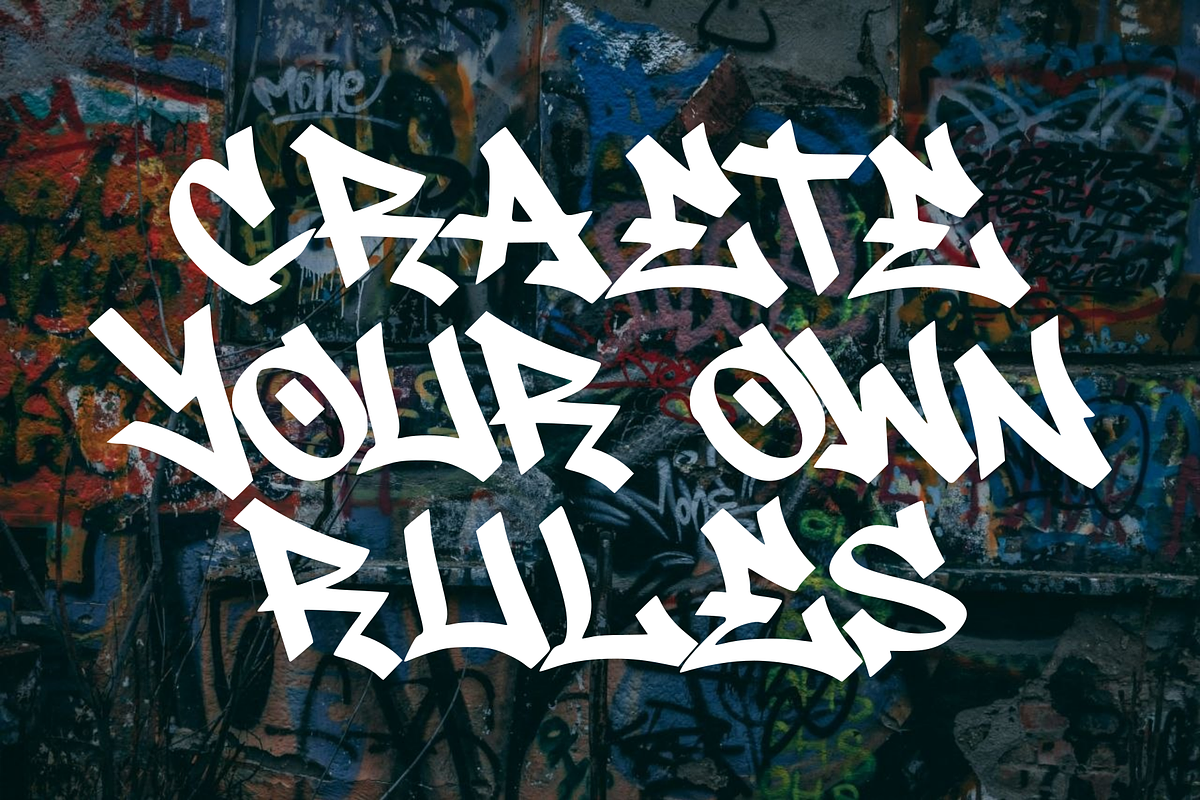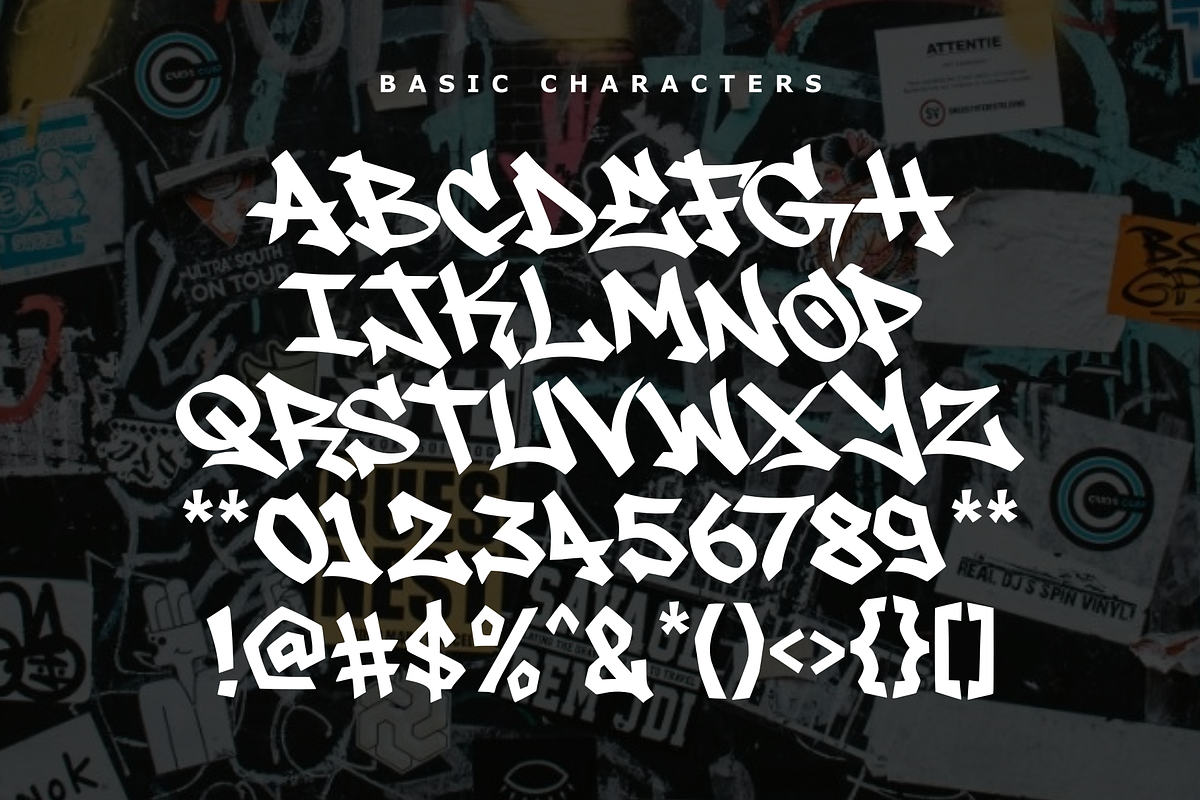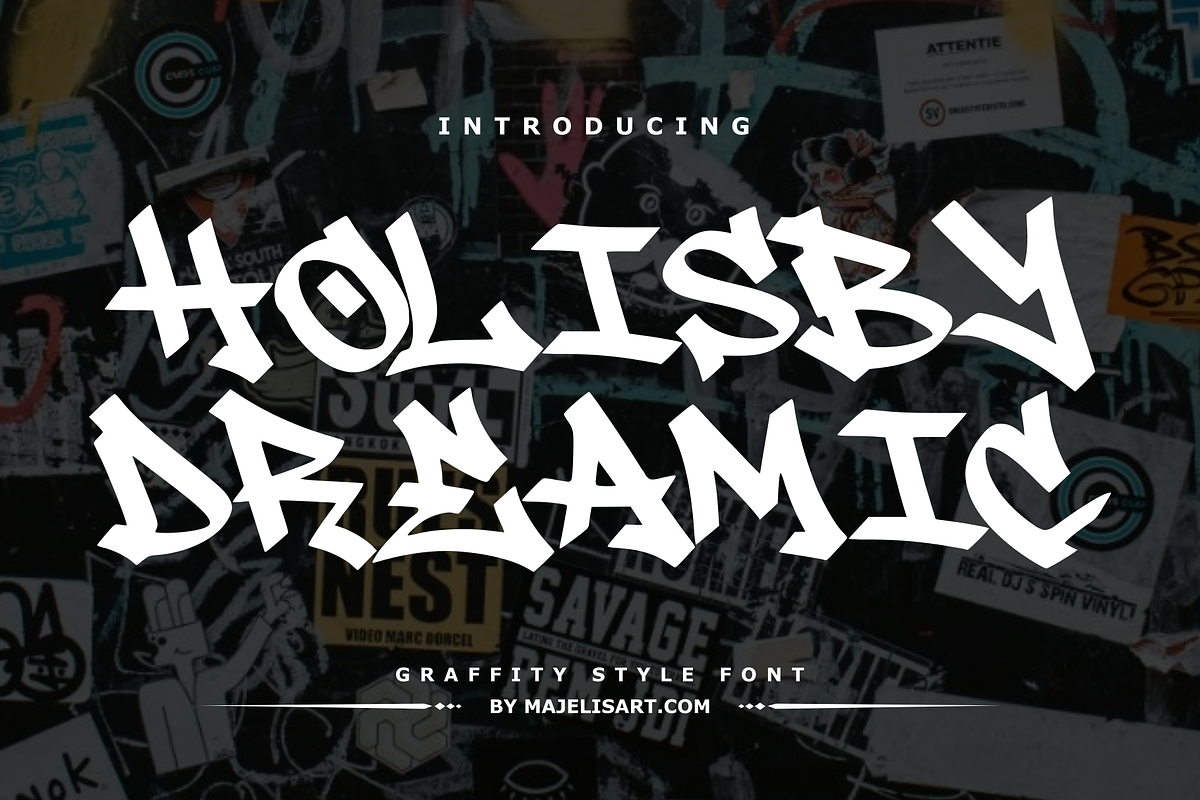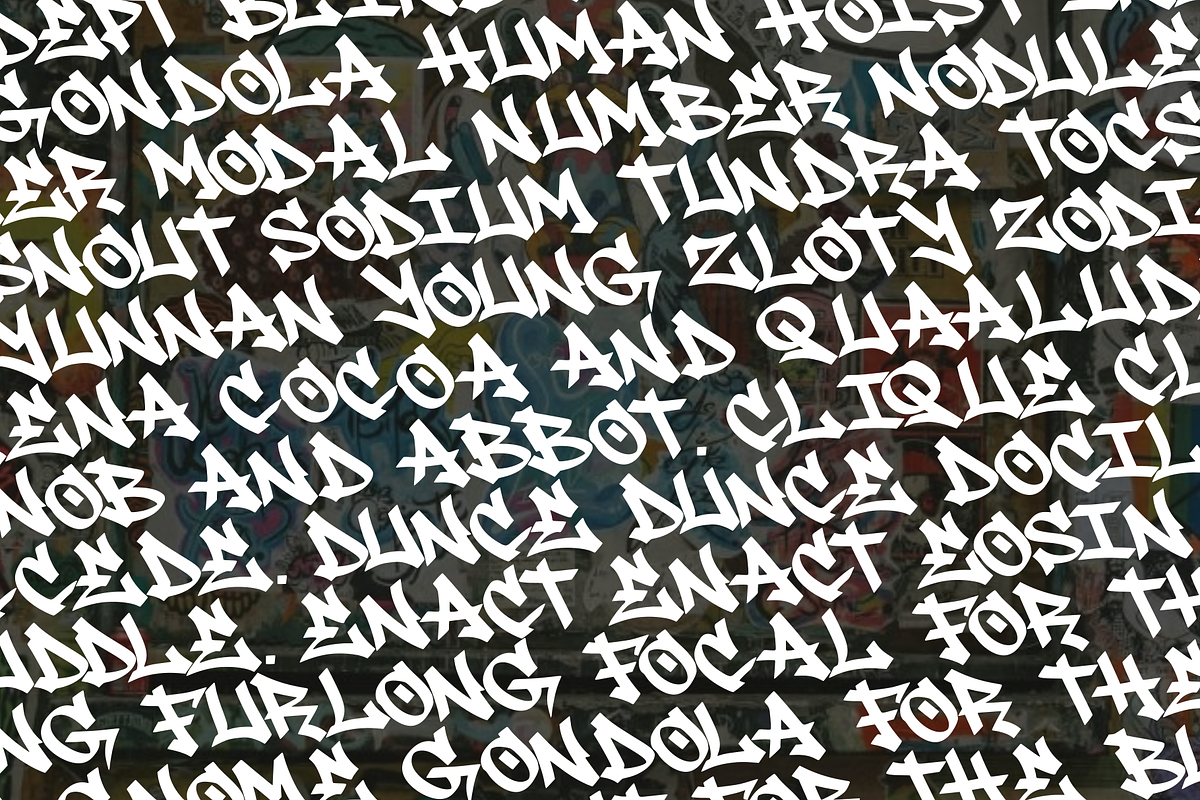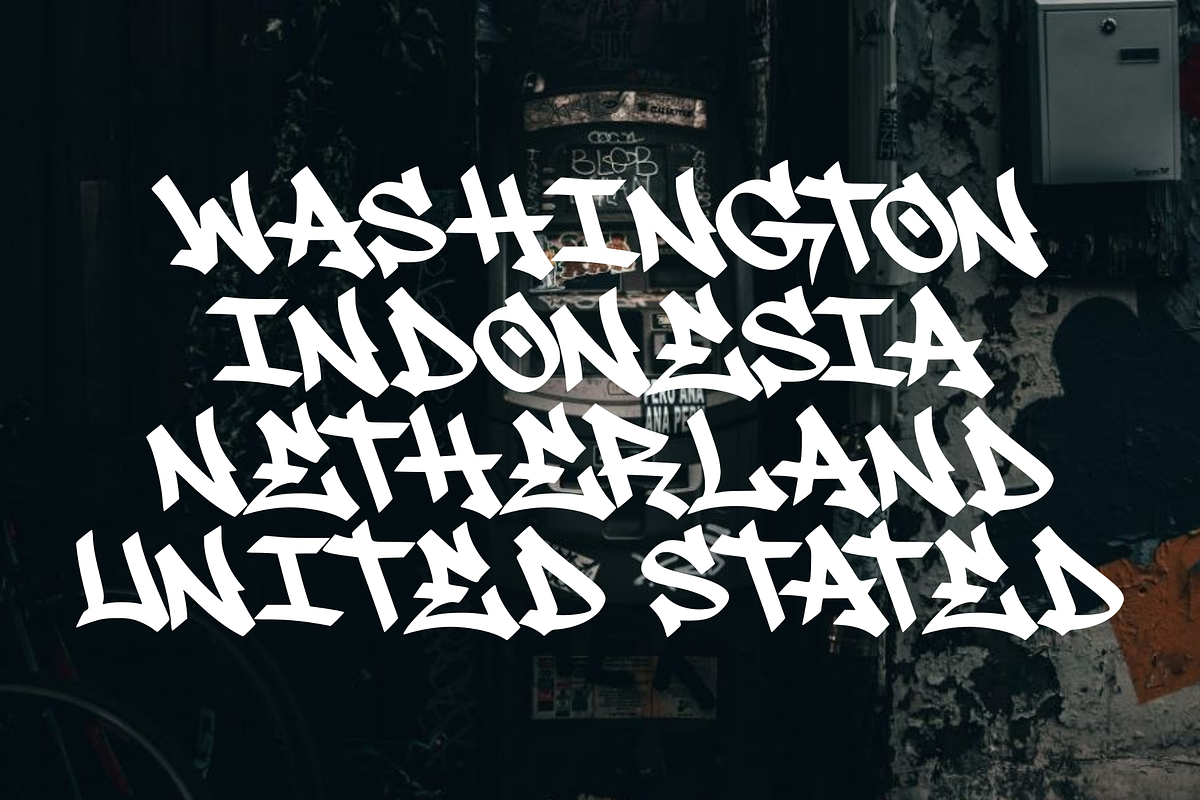
Holisby Dreamic - Graffiti Style
Holisby Dreamic
Bring bold street energy to your designs with this expressive Graffiti Style Font. Inspired by urban lettering, graffiti tags, and street art, this typeface features sharp, dynamic shapes and an edgy handcrafted appearance.
Its strong and unconventional letterforms make it perfect for designs that need a rebellious, energetic, and eye-catching look.
- Graffiti and street art designs
- Urban and streetwear branding
- T-shirt and apparel designs
- Posters and flyers
- Album covers and music artwork
- Logos and branding
- Skateboard and merchandise designs
- Stickers and labels
- Social media graphics
- Gaming and esports artwork
- Event and party designs
- Headlines and display typography
This font works especially well for large display text, titles, logos, and other designs where you want the lettering to stand out.
Give your projects a raw, energetic, and authentic urban graffiti feel with this bold display typeface.